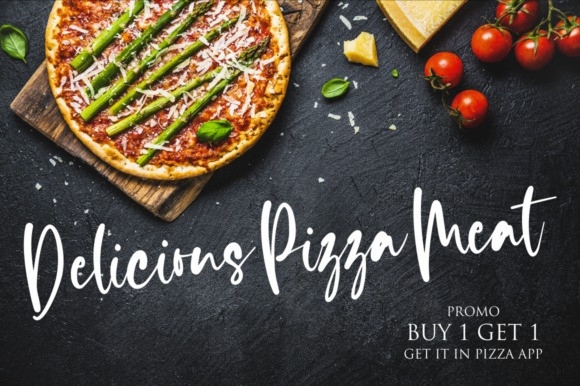
Rich and Famous Font
Rich and Famous Handwritten Font
This is a handwritten signature script with a natural flow. It’s designed and shared by NJStudio. This font was particularly crafted for those who need a beautiful and refreshing look to their designs. This font is PUA encoded which means you can access all of the glyphs and swashes with ease!